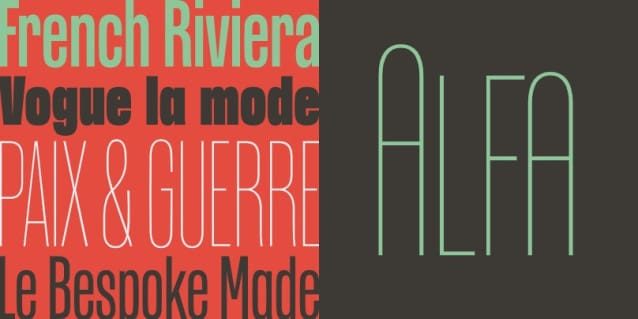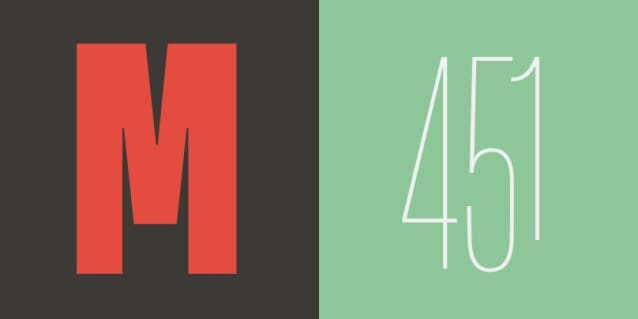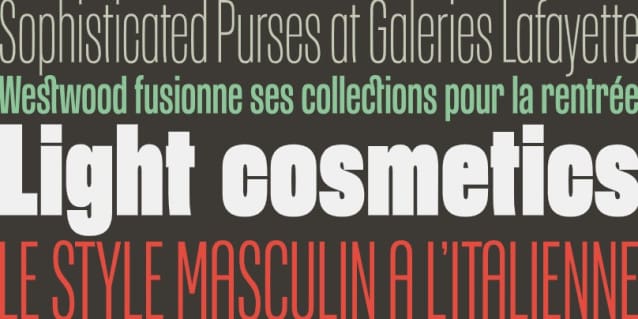
Arteria Compress Font Family
Arteria Compress Font Family, modern & elegant typeface, both practical & robus. In recent years, a new tendency has bec The decorative arts. While the simplicity of the lines has been preserved, the straightness is Tinguished elegance is coming into its own again. Typography has not been neglected in thes which have been expressed by an obvious reversion to certain styles.
However, most of the E were old-fashioned & not adapted to today’s working methods, owing their fragility. A new ty found with a design that corresponded to today’s taste. Therefore we have created it, a mode Typeface, both practical & robust. In recent years, a new tendency has become manifest in the While the simplicity of the lines has been preserved, the straightness is yielding & a distingu coming into its own again Typography has not been neglected in these developments which